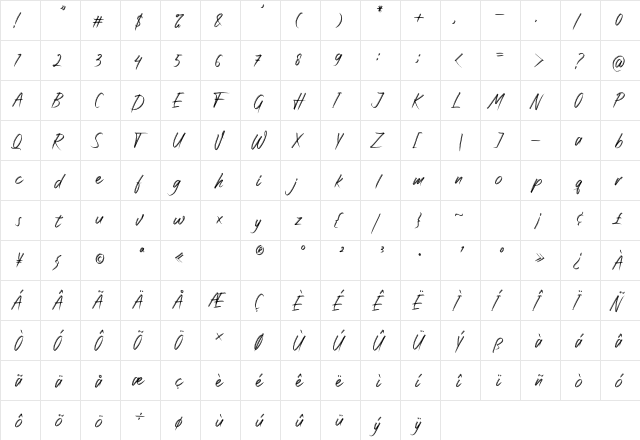
Rattnugidari Regular
| Foundry | StringLabs |
| Designer | Virgiawan Listanto |
Design Context for Rattnugidari Typeface
Rattnugidari is a composed and adaptable typeface that performs quietly and consistently across a wide range of design contexts.